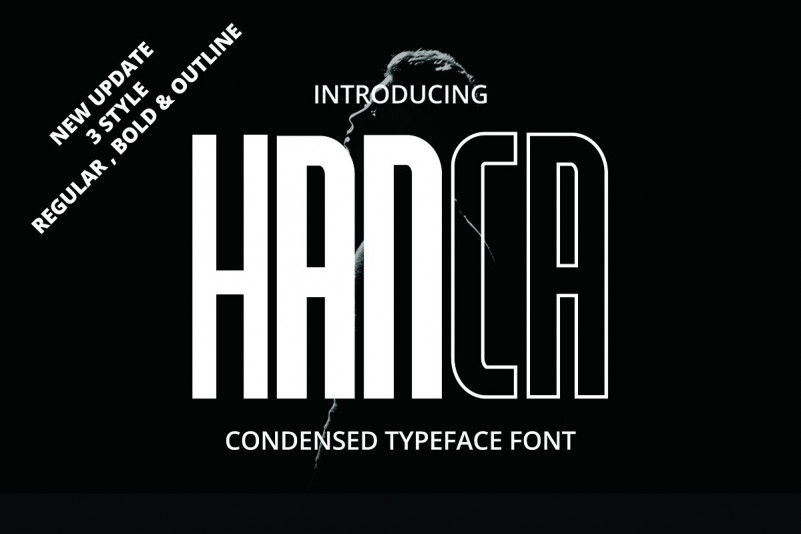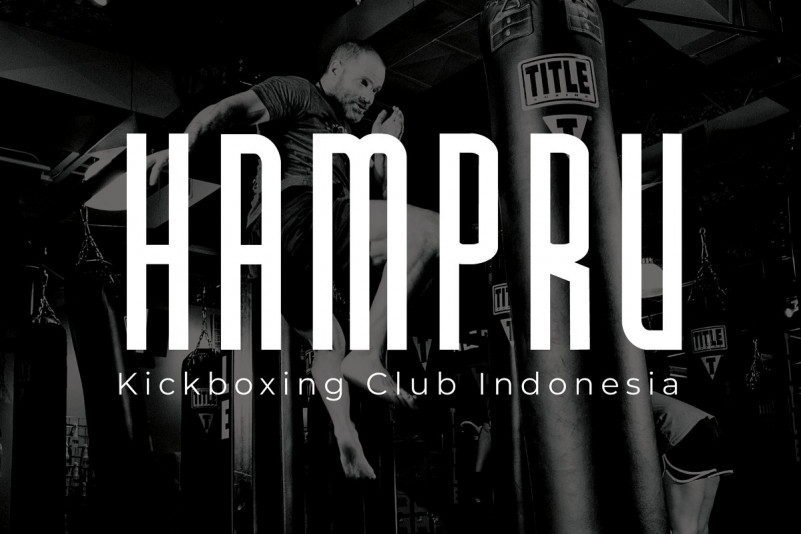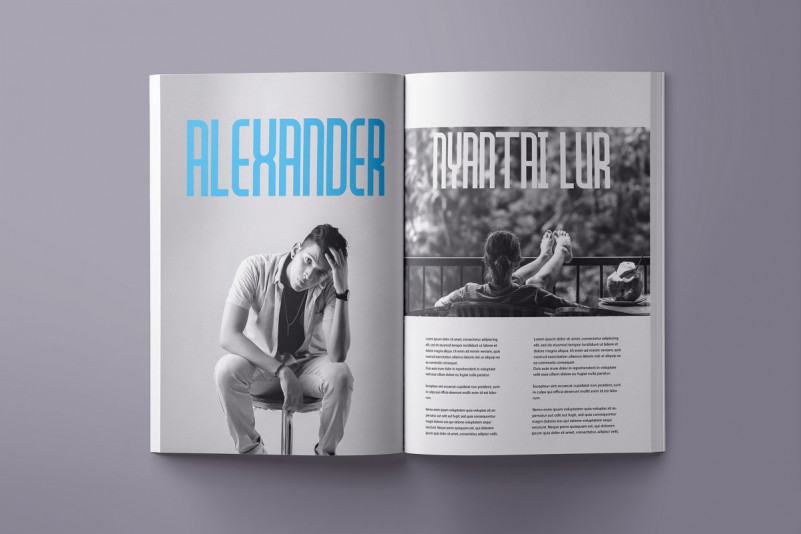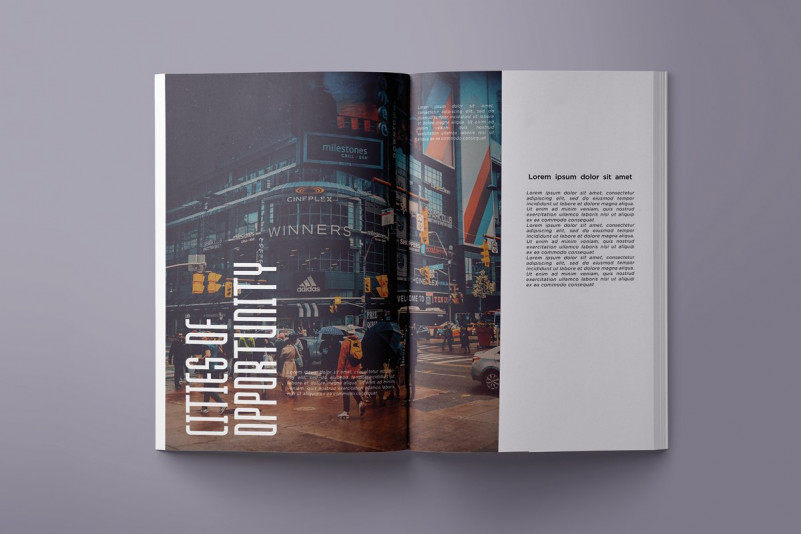
Hanca Sans Font Family
This is a condensed typeface font. This is an elegant sans serif font family. This font is perfect for anyone who like strong style. Introducing Hanca Font. HANCA Sans is the perfect fit. It’s a memorable, strong and elegant typeface. This collection is perfect for headlines, quotes, magazine covers, editorial design, print posters, signage, window shop design, and much more.